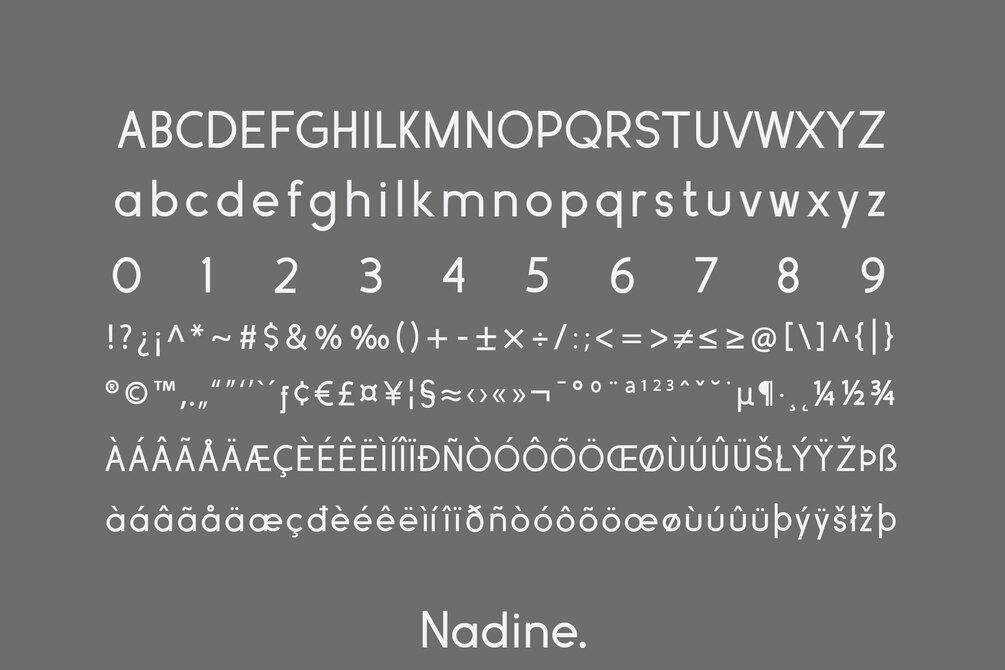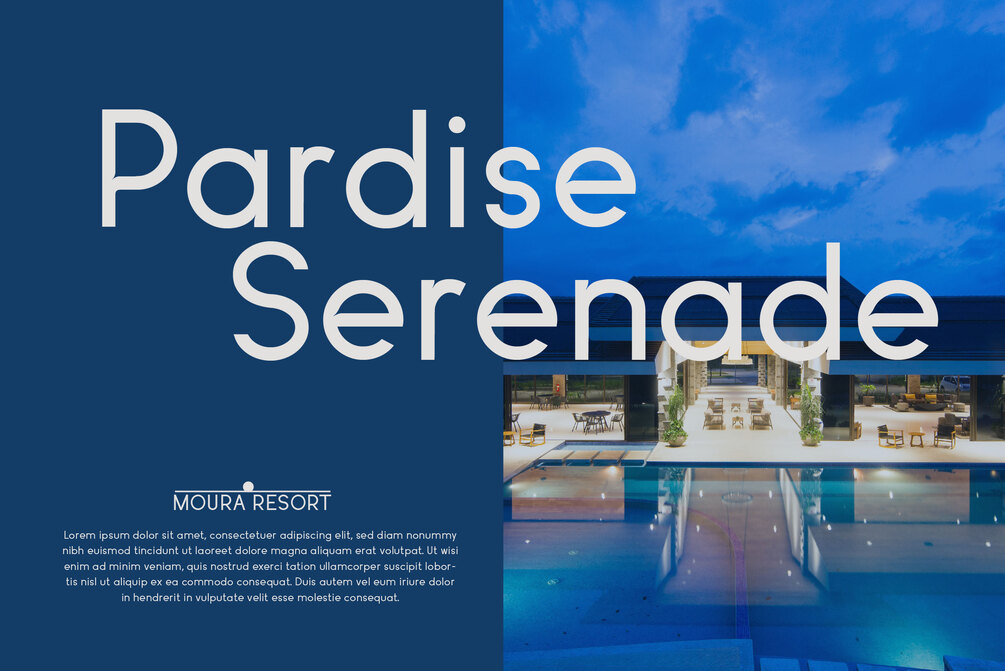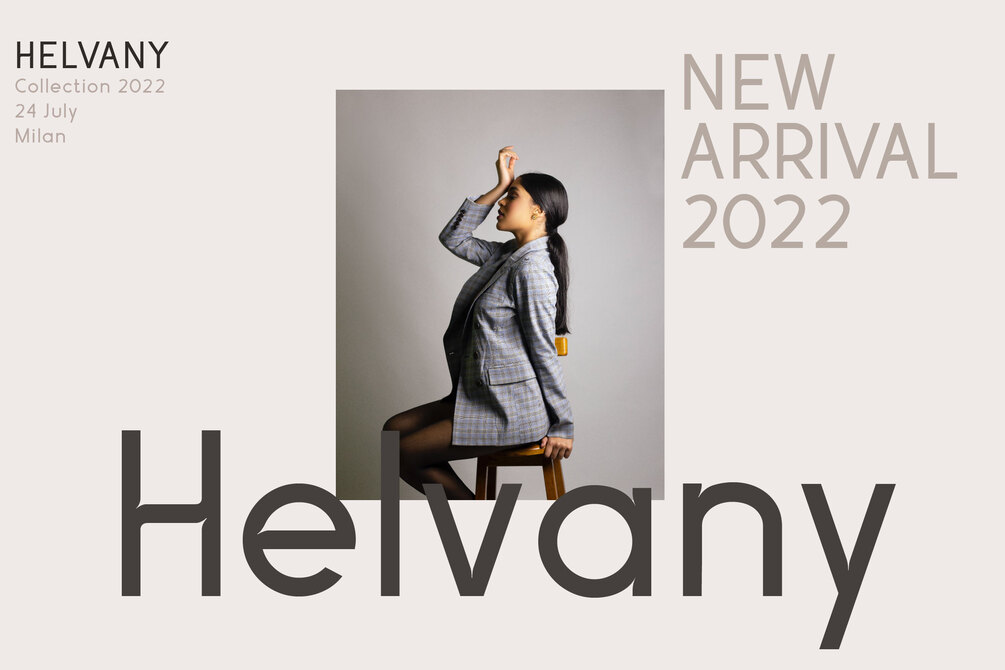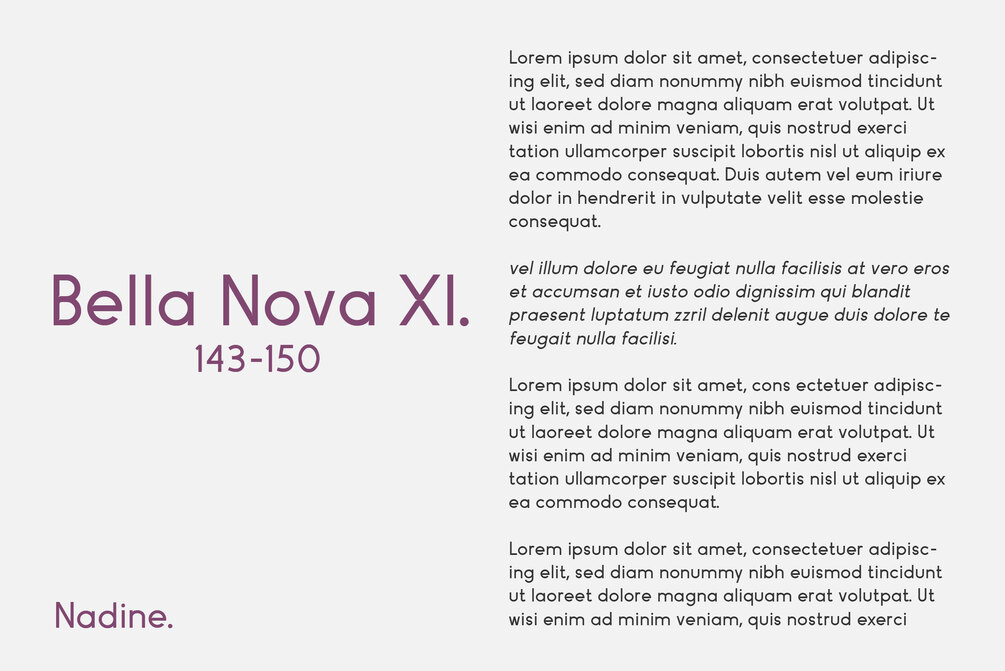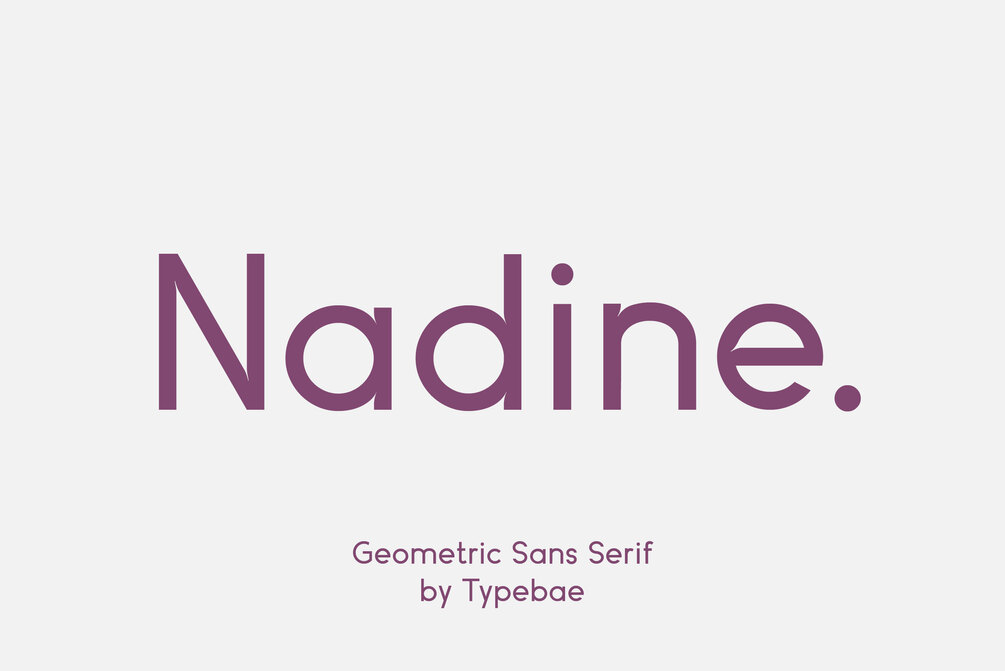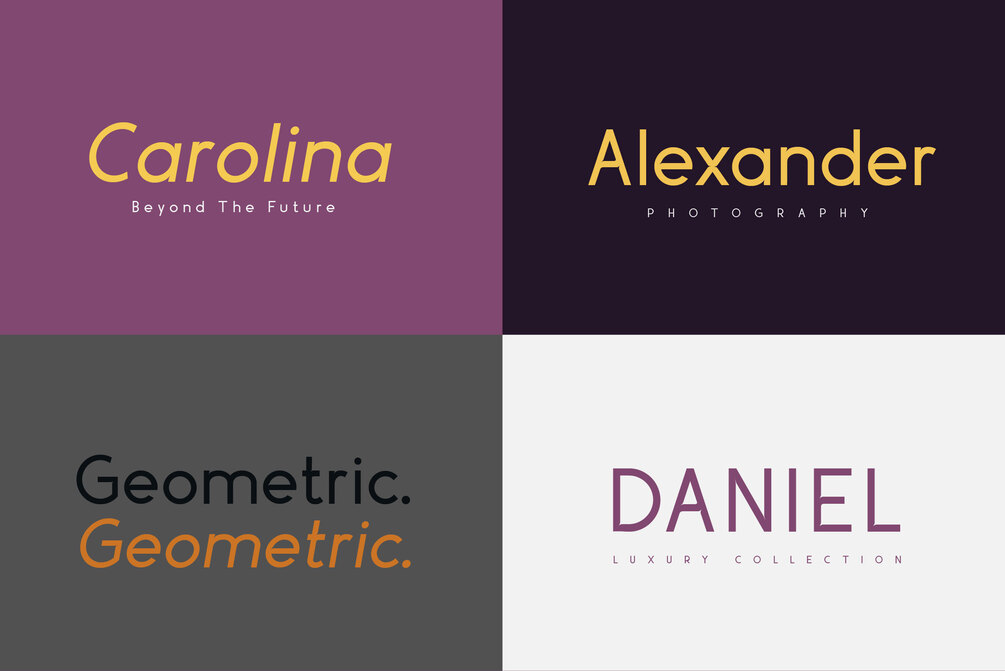
Nadine
Nadine is a minimal and clean sans serif font. It can easily be matched to an incredibly large set of projects, so add it to your creative ideas and notice how it makes them stand out!